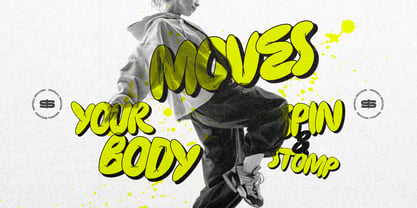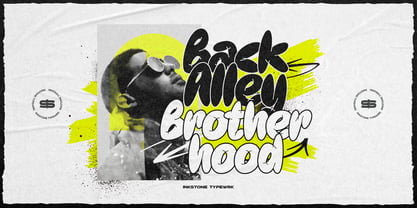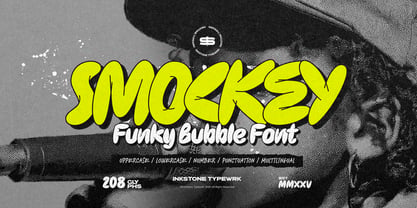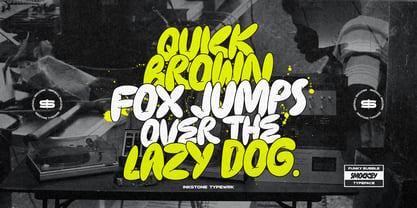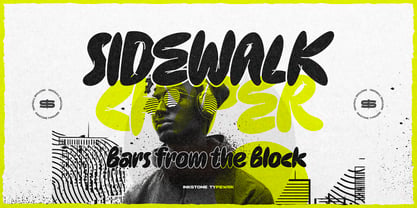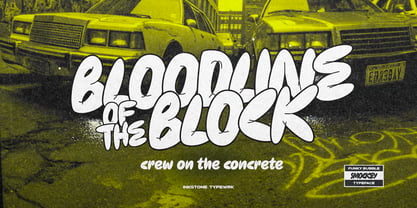
Smockey
by Inkstone Typewrk
The Smockey Font Family was designed by Andhika Pradana, Yono Asmadiputra and published by Inkstone Typewrk. Smockey contains 1 styles. More about this family
Smockey - Urban Bubble Font Get ready to turn up the funk with Smockey—a playful, stylish, and urban bubble font that oozes pure hipster energy. With its bold, bouncy curves and effortlessly cool vibes, this typeface is made for streetwear brands, edgy posters, and trendsetting creatives who aren’t afraid to stand out. Inspired by the rhythm of city streets and the funky spirit of underground culture, Smockey delivers a perfect blend of retro charm and modern swag. Whether you’re designing eye-catching logos, rad merch, or vibrant social media content, this font keeps it fresh, fun, and full of unstoppable energy.
Designers: Andhika Pradana, Yono Asmadiputra
Foundry: Inkstone Typewrk